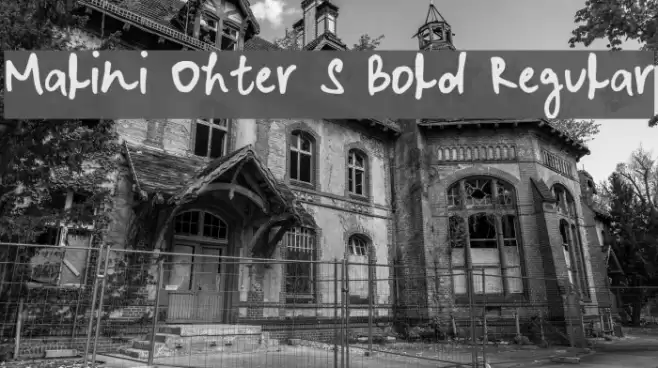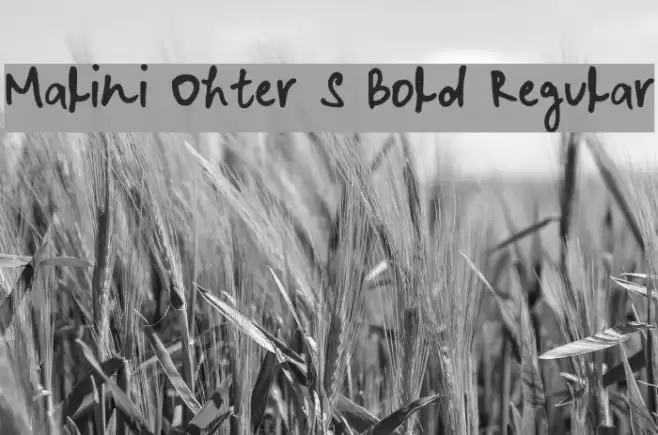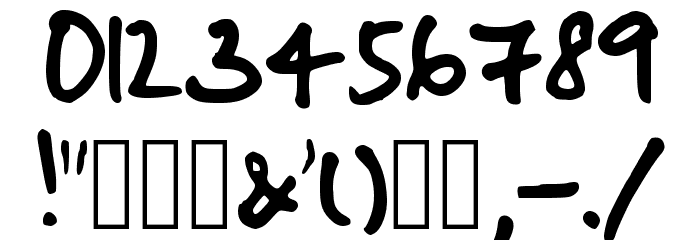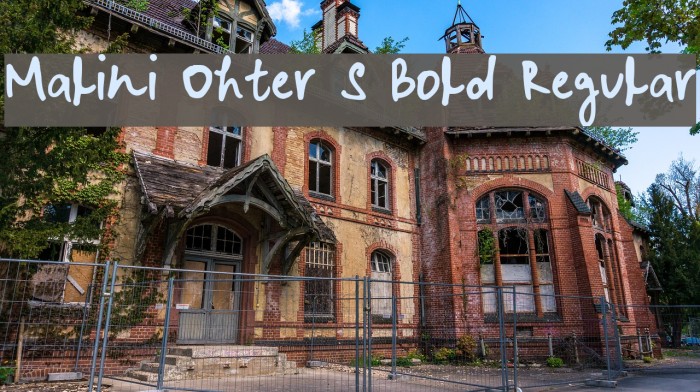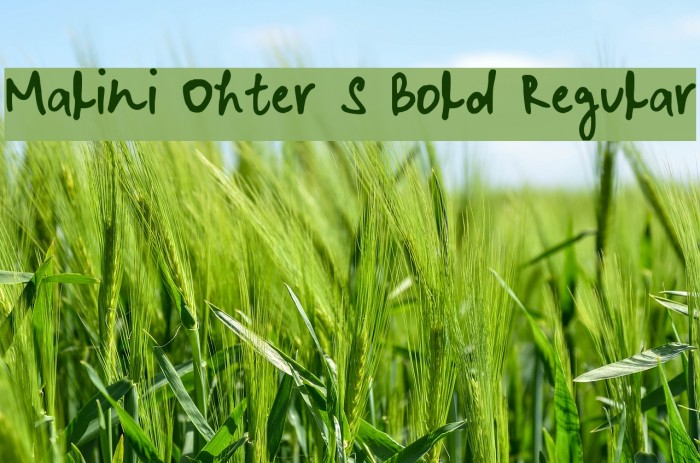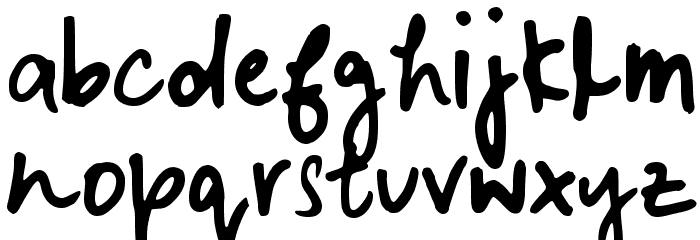
Malini Ohter S Bold Regular Font
Malini Ohter S Bold Regular Description
This font features a bold and expressive handwritten style, characterized by its fluid and dynamic strokes. The uppercase letters are slightly larger and more prominent, while the lowercase letters maintain a consistent flow, enhancing readability. Numbers are bold and clear, matching the overall aesthetic. The special characters are uniquely styled, adding a playful touch. The font's organic and casual appearance makes it suitable for projects that require a personal and approachable feel.
A bold, expressive handwritten font with fluid strokes and a casual style from Uncategorized fonts.
- Proposed Projects: Ideal for greeting cards, personal branding, social media graphics, and informal invitations.
- Overall Style: Casual
- Use Case: Logos, Headlines, Informal Text